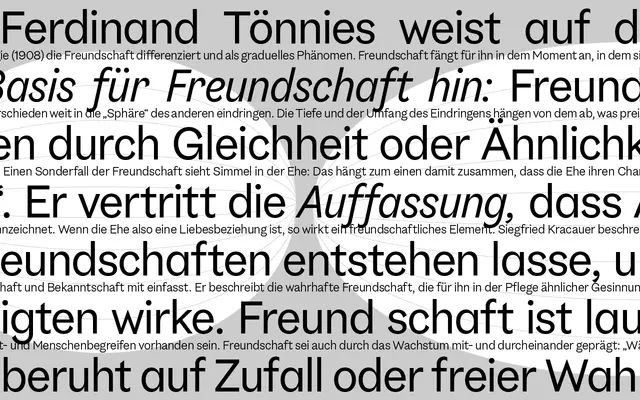
A contrasted grotesque with 19th-century roots, offering three sets of stylistic alternates and coverage across Extended Latin and Cyrillic.
Drawing from early sans-serif models such as Figgins Sans and Breite Grotesk, Riegla retains the contrast and character of pre-rationalisation grotesques rather than smoothing them into neutral utility. Ten styles span Light to Black with matching italics, and three stylistic alternate sets, labelled Jazz, Classic and individual glyph swaps, give designers control over its personality. Designed as a companion to the fusion serif family Riegraf, both sharing formal commonalities for mixed-family typesetting.
Described explicitly as a non-neutral grotesk drawing from 19th-century sans-serif designs such as Figgins Sans and Breite Grotesk, with upright contrast reminiscent of pre-rationalisation grotesques rather than the neutralised Swiss tradition.